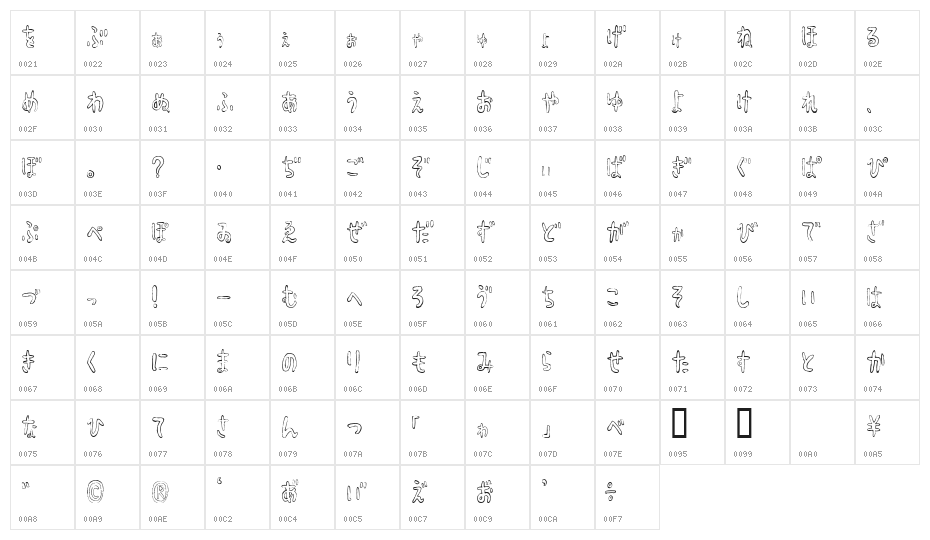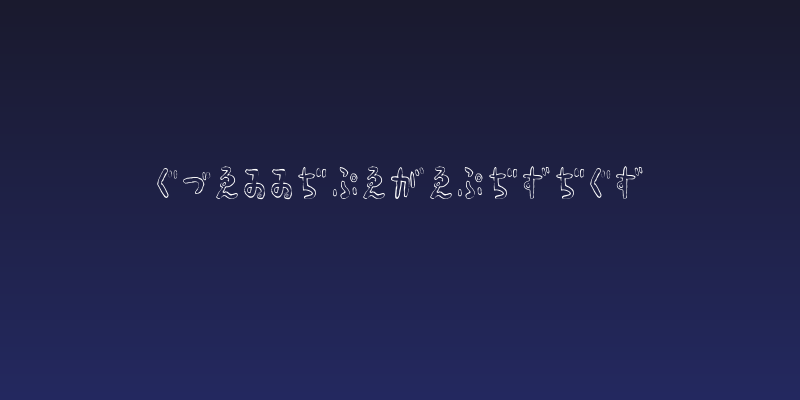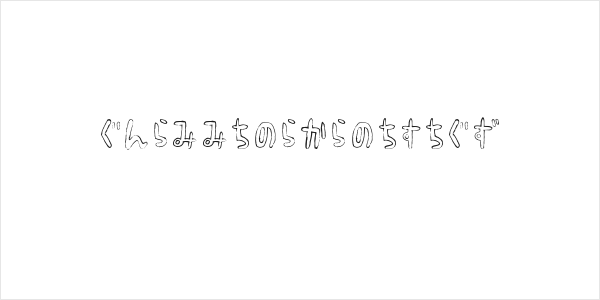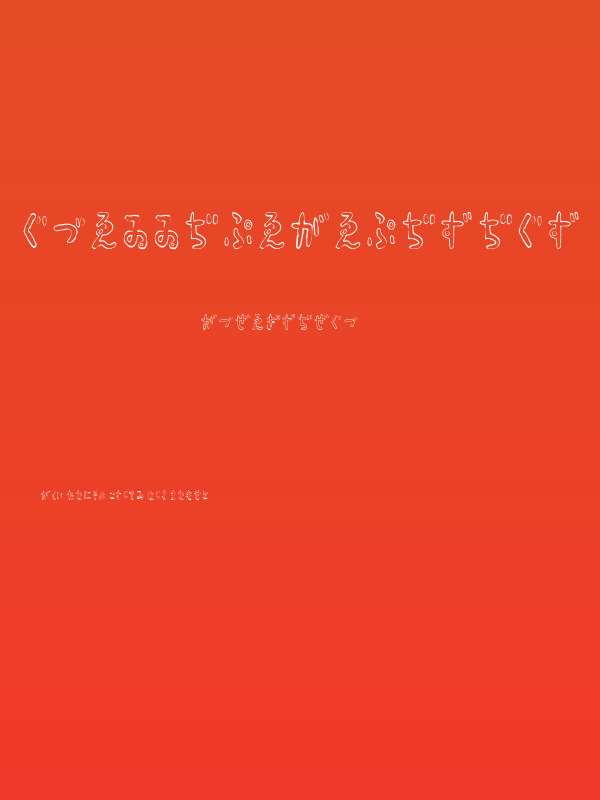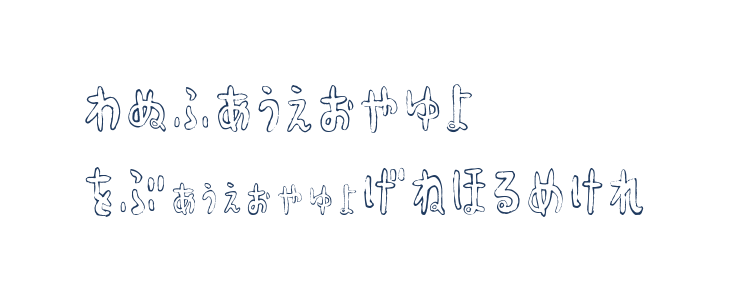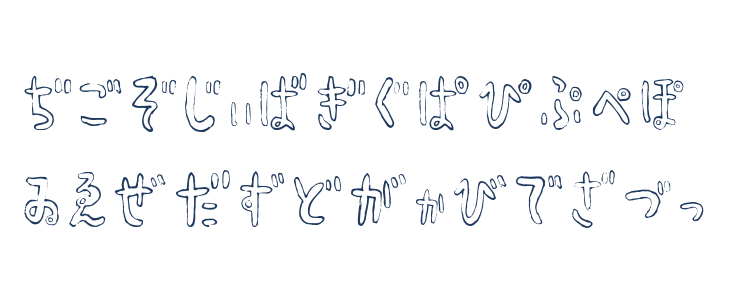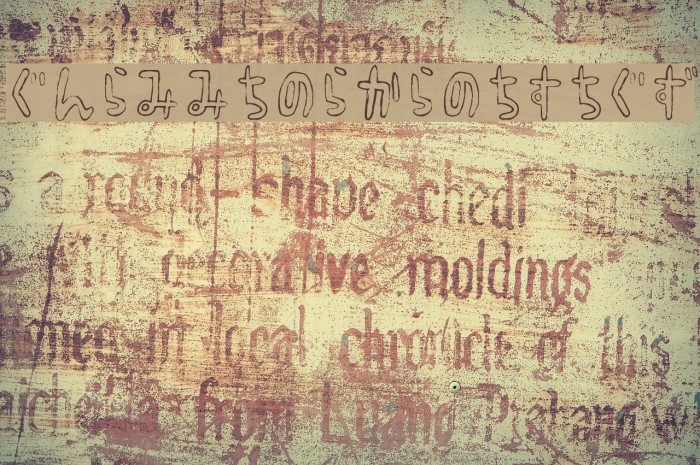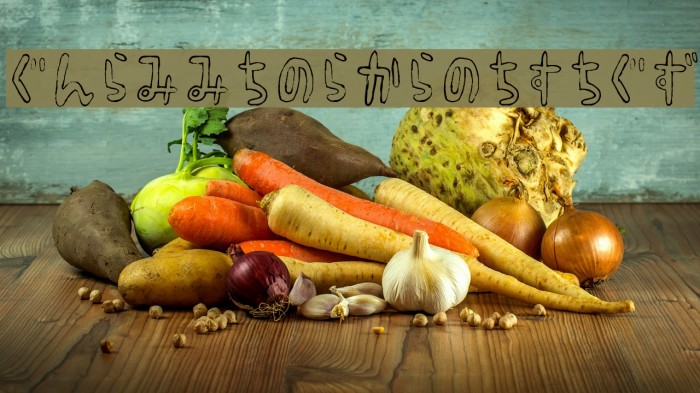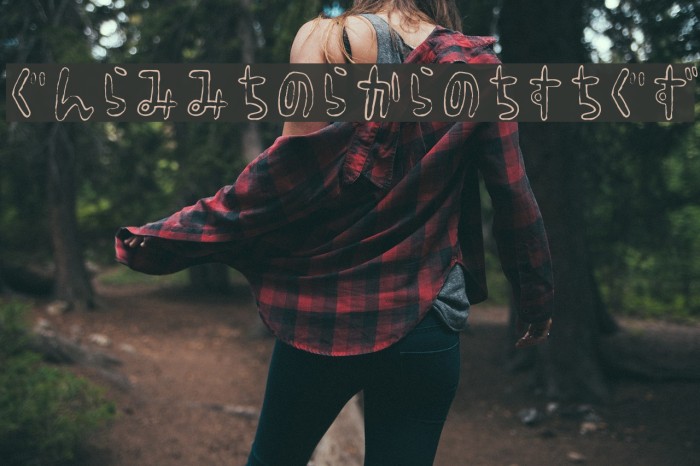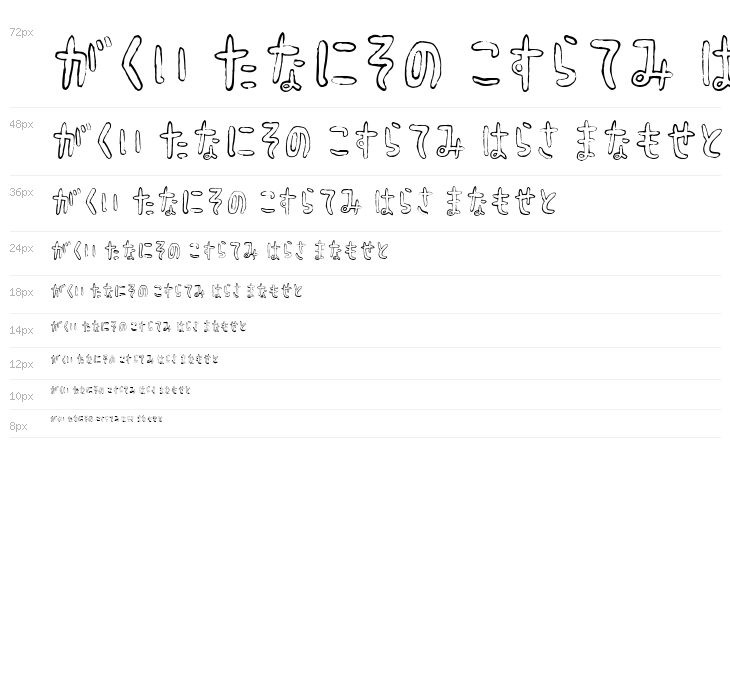
HyonnakotokaraHR Font
This font features a playful and whimsical design, characterized by its hand-drawn appearance and irregular line thickness. The characters are outlined with a slightly uneven stroke, giving them a casual and informal look. This style is reminiscent of doodles or sketches, making it ideal for projects that require a fun and approachable aesthetic. The font maintains legibility despite its artistic flair, with each character distinctly recognizable. The overall impression is one of creativity and spontaneity, suitable for designs that aim to convey a sense of lightheartedness and creativity.
| Proposed Projects | Ideal for children's books, greeting cards, playful branding, and creative posters. |